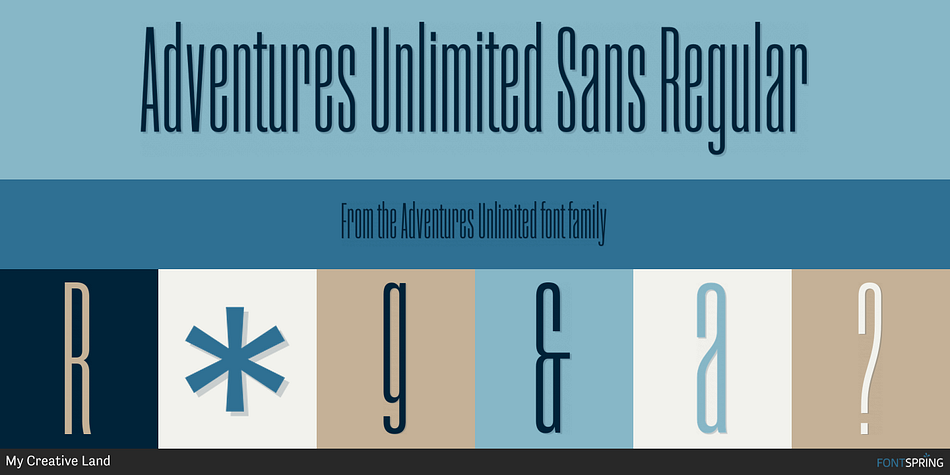
Adventures Unlimited Sans Regular
Designed by Elena Genova, Adventures Unlimited is a display sans and script font family. This typeface has five styles and was published by My Creative Land.
Please welcome a new contemporary font family Adventures Unlimited: an adventurous pair of ultra condensed sans serif and a monoline signature script. Both fonts are charged with ligatures and swashes and will make your design journey even more enjoyable!
The ultra condensed sans serif comes in three weights while the script font - in two. You can mix-n-match all five to enhance your design and to invigorate your ideas.
The font family is perfect for all kind of designs: quotes, t-shirt, branding, social media, magazines, cards, packaging etc.